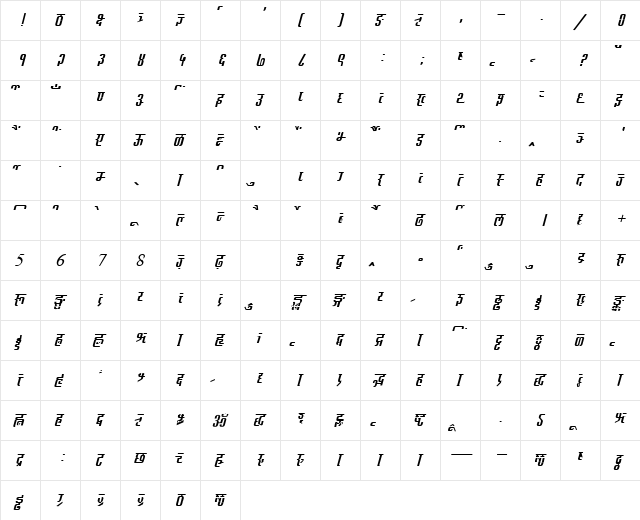
AkrutiDevAkshay NormalItalic
Design Context for AkrutiDevAkshay Typeface
AkrutiDevAkshay offers clean, dependable letterforms without strong stylistic allegiance, making it a practical choice for designers who need flexibility. The dynamic lean of this cut emphasises speed and emphasis in any layout.